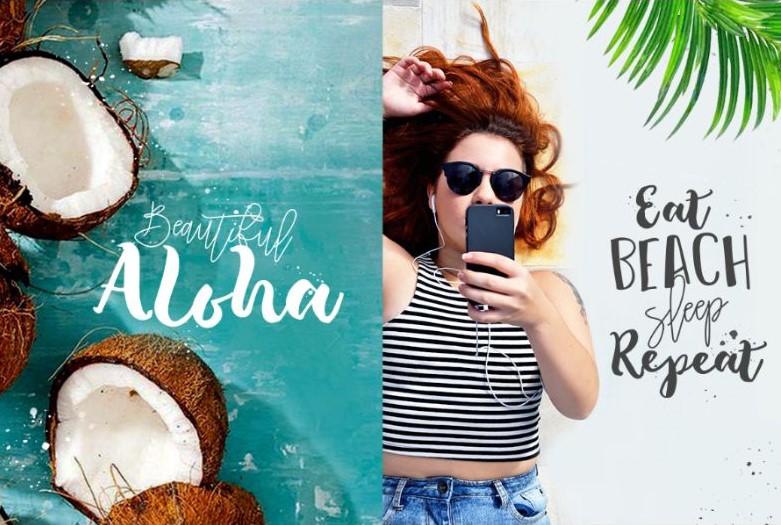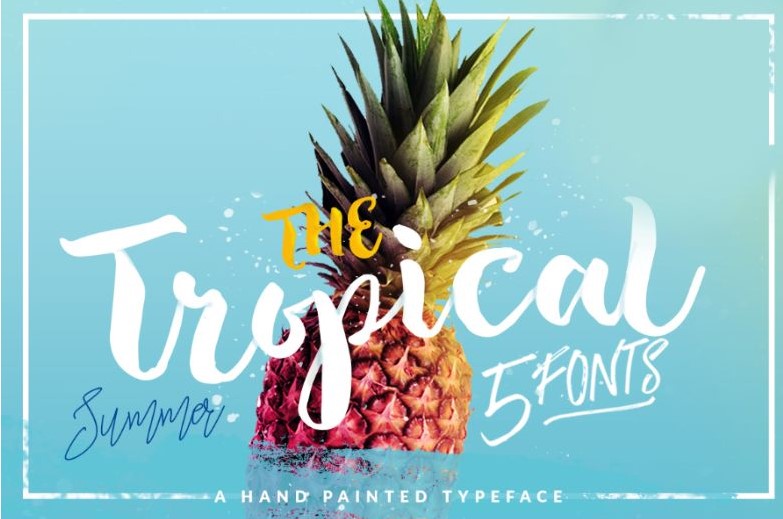
Tropical Brush Script Font
Tropical Brush Script Font comes into the category of the cursive fonts. This typeface is known for its text generation function and also known as retro brush font. This high-quality font has made extensively in a top-notch type preserving an opentype outline the form. That is a glamour that is much like the hammer font.
So, due to this option, you could use this font for a large marketplace region. This font is finished in replica and pastes abilities. This typeface is likewise of sabon font pretty rated in the google fonts. Tropical Brush Script Font Free The completes letters together with this economic corporation preface sans-serif typeface feature top-notch satisfied.